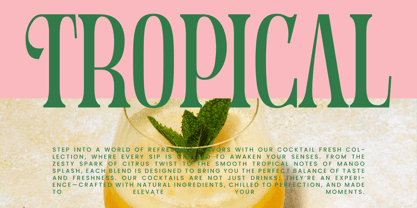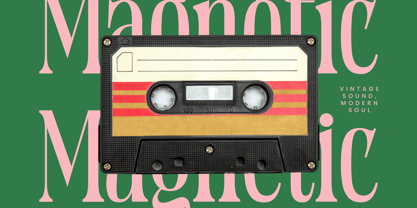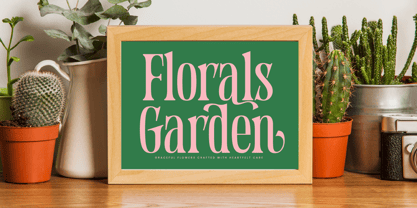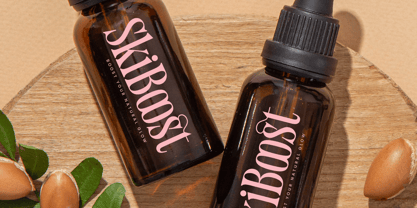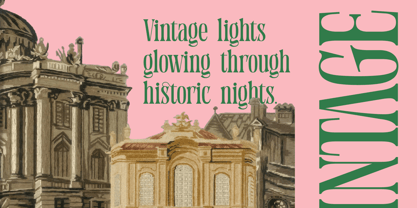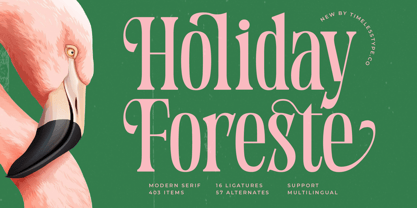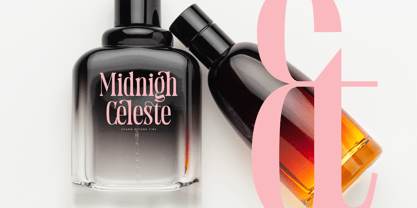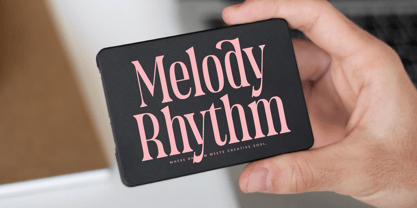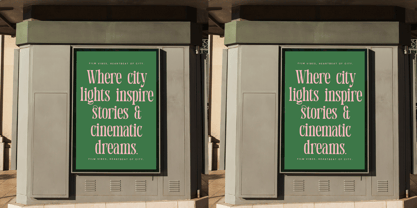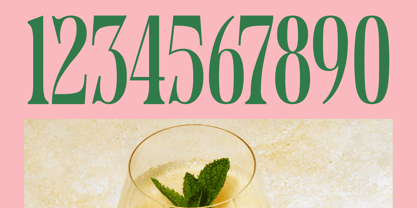
Holiday Foreste
by Timelesstype Studio
The Holiday Foreste Font Family was designed by Heru Utama Putra and published by Timelesstype Studio. Holiday Foreste contains 2 styles and family package options.
Holiday Foreste - Modern Serif Font , from Timelesstype , Suitable for any projects such as: logos, branding projects, homeware designs, product packaging, mugs, quotes, posters, shopping bags, t-shirts, book covers, name card, invitation cards, greeting cards, label, photography, watermark, special events, and all your other luxury and beautiful projects that need a Luxury Serif taste.